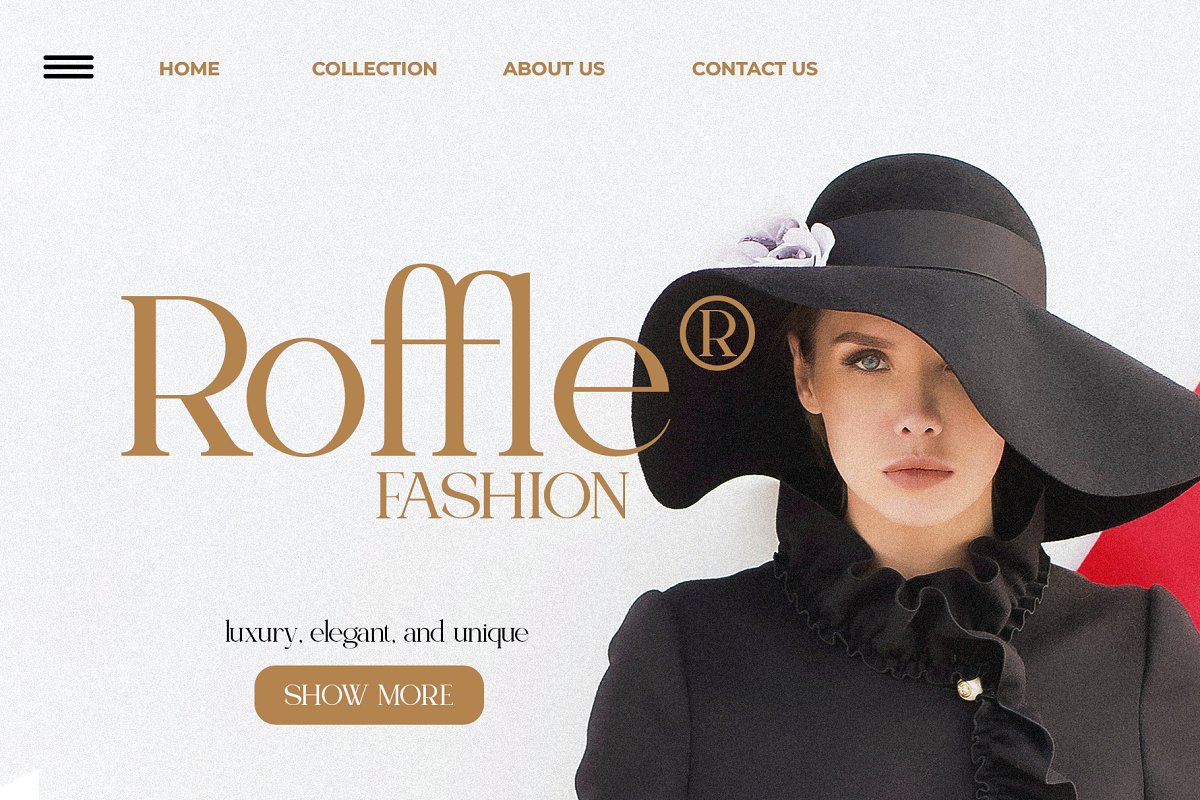
About the Olivera | Chic Modern Serif
Olivera Is A Chic Serif Fonts Inspired By Modern and Ligature Characters, Font Features :Olivera OTF ( Open Type )Olivera TTF ( True Type )Olivera WOFF ( Web Font )Olivera Oblique OTF ( Open Type )Olivera Oblique TTF ( True Type )Olivera Oblique WOFF ( Web Font )FAQ’s :Where are the TTF’s? They are included in a download link( in a text file) in your main download file